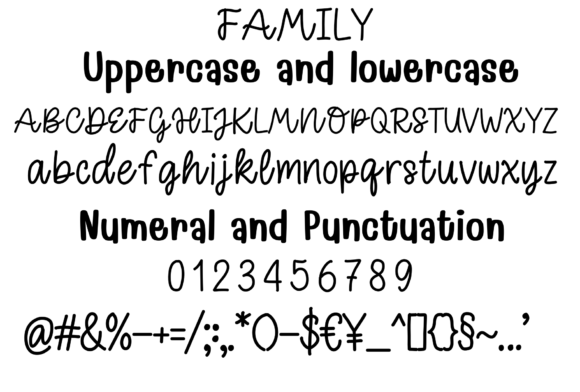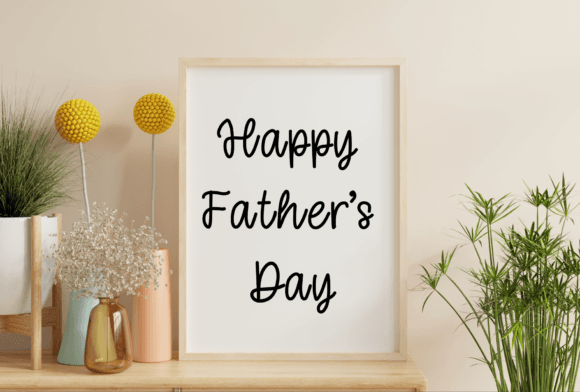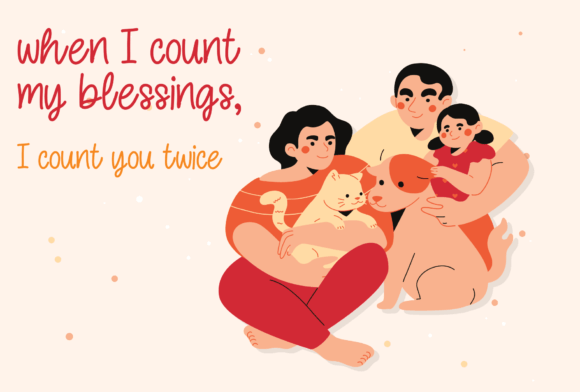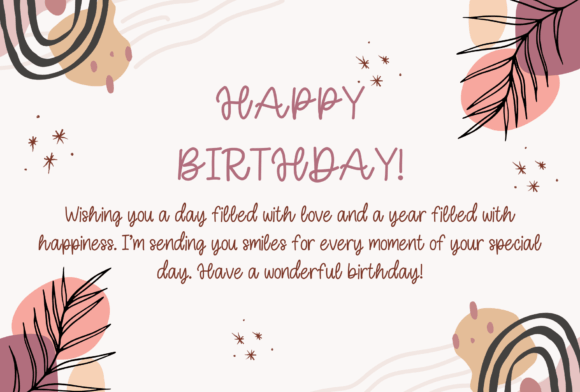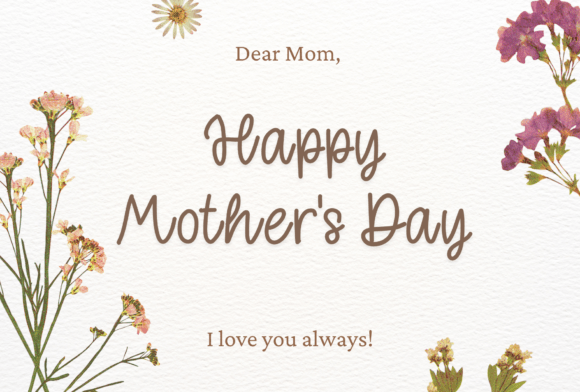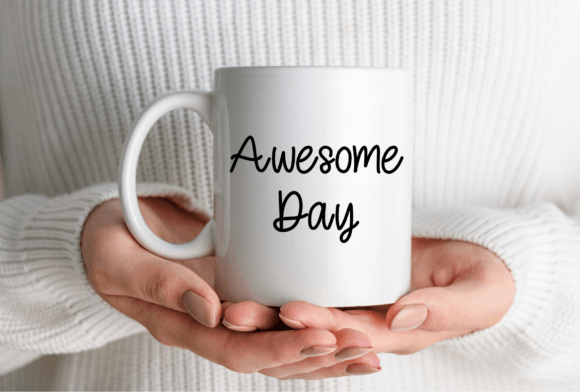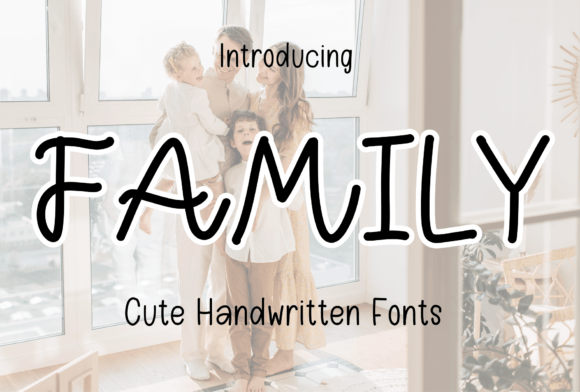
Introducing “Family” Font: Add a Touch of Whimsy to Your Creations
Are you tired of using the same old fonts for your designs and crafts? Look no further! “Family” font is here to bring a sense of enchanting charm and whimsical flair to your projects. This delightful, handwritten font is perfect for adding a personal touch to your messages, making it ideal for various occasions and products.
A Font that Speaks to the Heart
“Family” font is more than just a collection of letters; it’s a way to express your emotions and make your messages more special. Its unique, handwritten style gives your words a warm and fuzzy feel, making it perfect for:
- Birthdays: Make your birthday wishes stand out with a font that’s as celebratory as the occasion itself.
- Father’s Day: Show your appreciation with a heartfelt message that speaks to the love and gratitude you feel.
- Anniversaries: Commemorate your special moments with a romantic and whimsical touch.
Beyond Occasions: Endless Possibilities for Products
The versatility of “Family” font doesn’t stop at special occasions. You can use it to adorn a wide range of products, transforming them into cherished keepsakes:
- Everyday Essentials:
- T-shirts: Give your apparel a personal touch that’s sure to turn heads.
- Mugs: Start someone’s day off right with a warm and fuzzy message.
- Stickers: Add a playful accent to your stickers and make them truly special.
- Intimate Items:
- Planners: Make planning and organization a delightful experience.
- Pillows: Add a touch of warmth and coziness to your home decor.
- Keychains: Create a thoughtful and functional keepsake.
Why Choose “Family” Font?
So, what sets “Family” font apart from other fonts? Here are just a few reasons why designers and crafters love it:
- Unique Style: Its whimsical and enchanting charm makes it perfect for adding a personal touch to your designs.
- Versatility: Use it for a wide range of projects, from digital designs to physical products.
- Easy to Read: Despite its playful style, “Family” font remains easy to read, making it perfect for both short messages and longer texts.
Tips for Using “Family” Font
To get the most out of “Family” font, here are a few tips to keep in mind:
- Mix and Match: Combine “Family” font with other fonts to create a unique and visually appealing design.
- Play with Colors: Experiment with different colors to find the perfect match for your project.
- Keep it Simple: Don’t be afraid to keep your design simple and let the font speak for itself.
“Family” font is more than just a font; it’s a way to bring a sense of joy and whimsy to your designs and crafts. With its unique style, versatility, and ease of use, it’s perfect for designers and crafters looking to add a personal touch to their projects. So why wait? Dive into the world of “Family” font and discover a new way to express yourself and make your messages truly special.